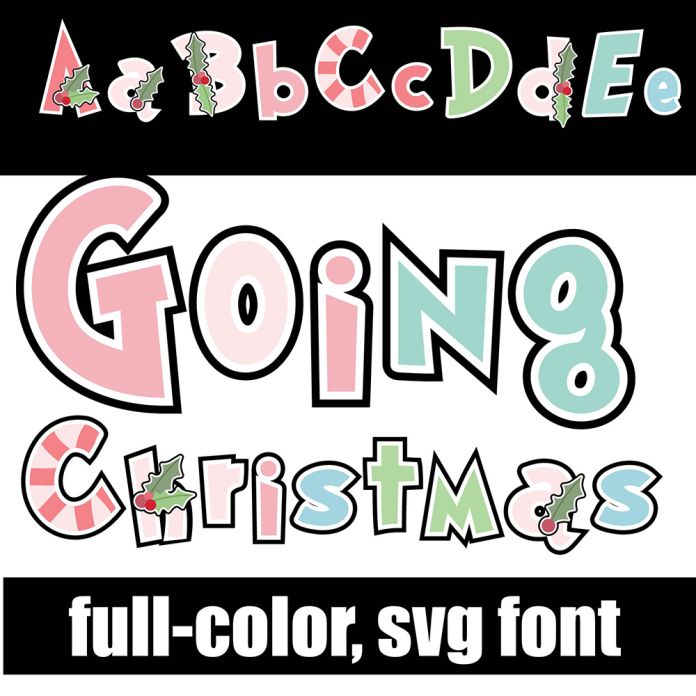
This full-color font features a youthful, whimsical sans serif in a pastel Christmas color palette and holly throughout. There is an alt case with an additional color of each letter. This font works best for titles, displays, posters and more. Please note color fonts will show as black in non compatible programs. This font type is compatible with Silhouette Studio.